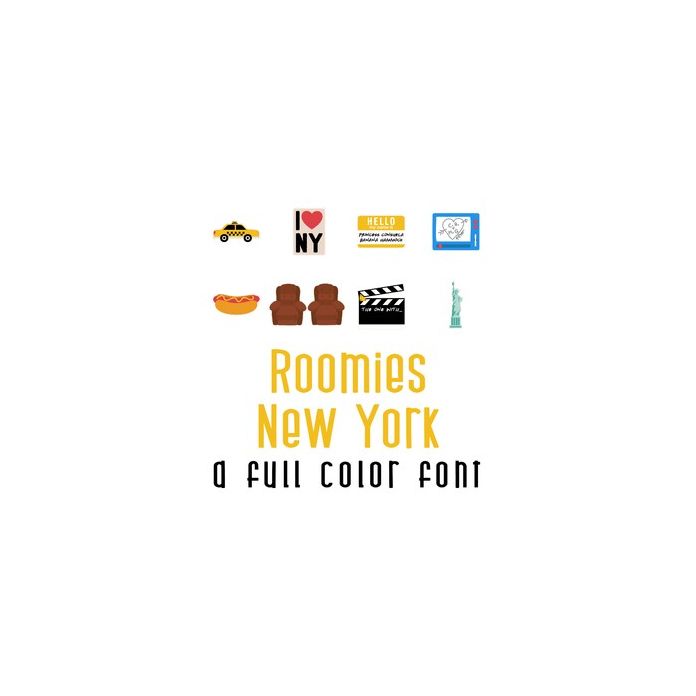
This adorable full-color doodlebat font features 26 images from your favorite cast of characters and New York City. Perfect for parties, gifts, crafts, decor, planner stickers, scrapbook pages and more!